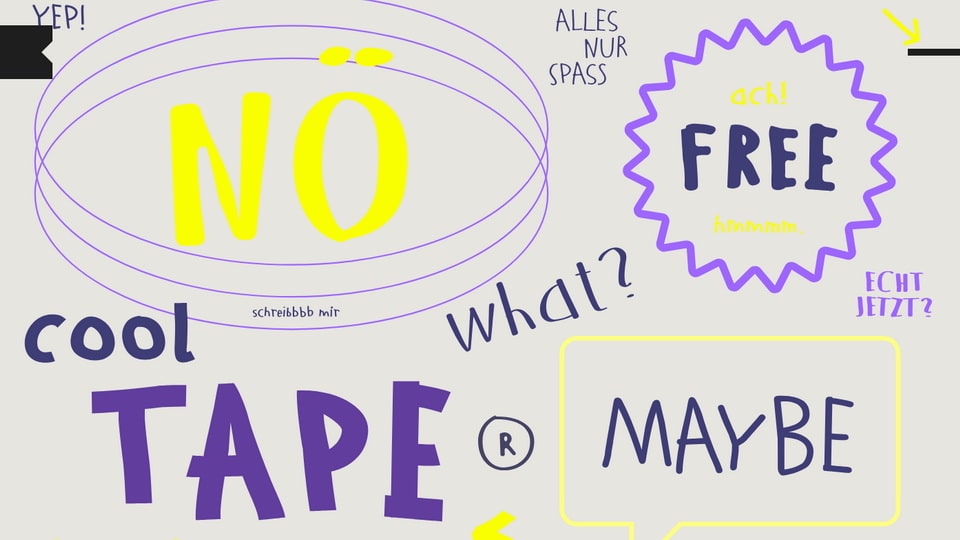
Download Krikikrak font, a playful and energetic display typeface with four distinct styles, each bursting with character. Its hand-drawn feel, irregular shapes, and lively details create a spontaneous and quirky mood.
Designer: bBoxType